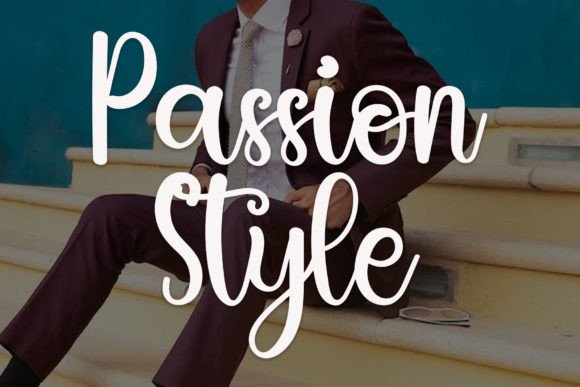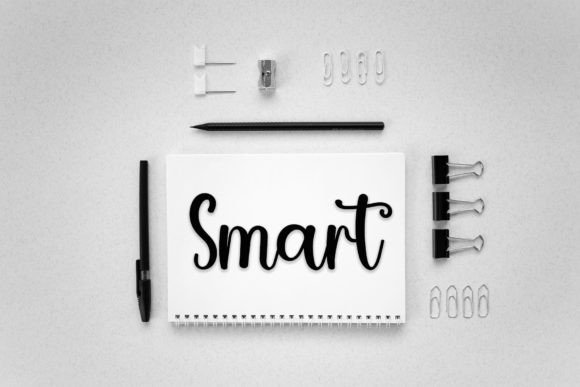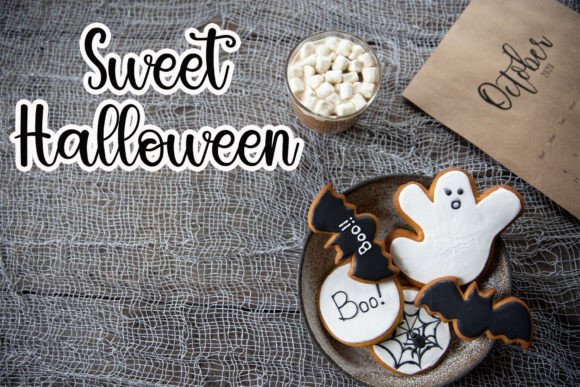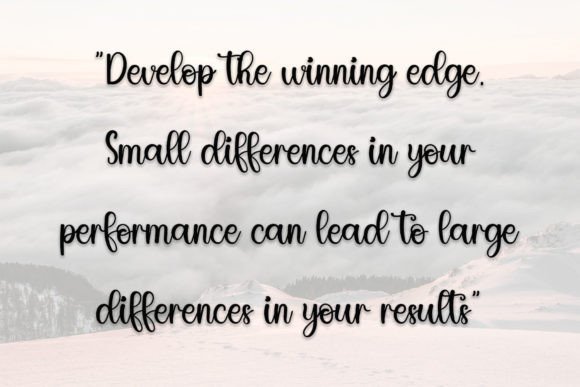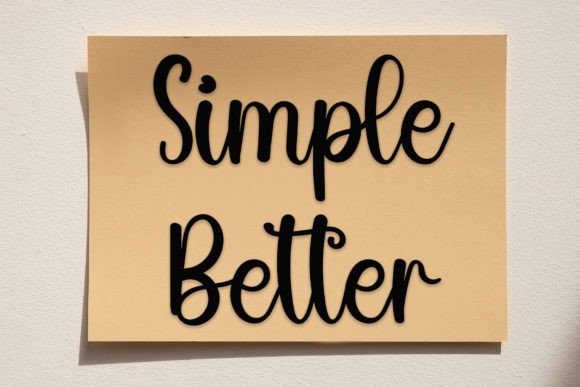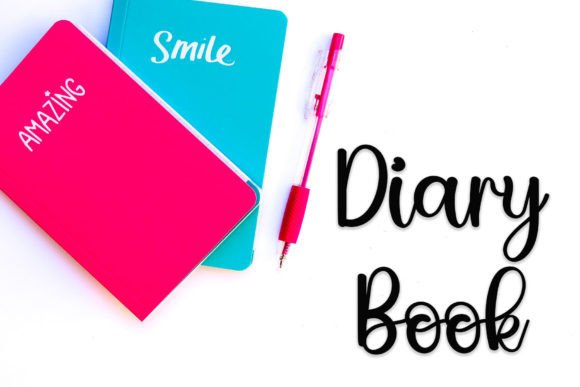
Introducing Autumn Smile Font: The Perfect Typeface for Fall-Inspired Designs
As the leaves change colors and the air grows crisp, designers and crafters are on the lookout for the perfect typography to capture the essence of the autumn season. Look no further than Autumn Smile Font, a delightful and enchanting typeface that embodies the warmth and coziness of fall. With its graceful letterforms and earthy tones, this font is sure to add a touch of whimsy and charm to your designs.
The Inspiration Behind Autumn Smile Font
Autumn Smile Font is more than just a typeface – it’s an experience. Inspired by the vibrant colors and rustic charm of the fall season, this font is designed to evoke the feeling of crunching through fallen leaves, sipping apple cider, and snuggling up by the fire. The result is a font that’s both nostalgic and inviting, perfect for autumn-themed projects, seasonal greetings, and nature-inspired branding.
Key Features of Autumn Smile Font
- Unique Letterforms: Autumn Smile Font features distinctive letterforms with a playful, handwritten feel. Each character is carefully crafted to convey a sense of warmth and approachability.
- Warm, Earthy Tones: The font’s earthy color palette is reminiscent of fallen leaves, rich soil, and cozy sweaters. This warm tone is perfect for creating a sense of comfort and nostalgia in your designs.
- Whimsical Charm: Autumn Smile Font has a playful, whimsical quality that’s sure to delight. Whether you’re designing a seasonal greeting card or a nature-inspired brand identity, this font adds a touch of magic to your project.
- Versatility: This font is perfect for a wide range of design applications, from digital projects to print materials. Use it for autumn-themed social media graphics, fall festival posters, or cozy packaging design.
Using Autumn Smile Font in Your Designs
Autumn Smile Font is incredibly versatile, making it perfect for a variety of design projects. Here are a few ideas to get you started:
- Autumn-Themed Greetings: Use Autumn Smile Font to create warm and welcoming seasonal greetings, such as Thanksgiving cards, Halloween invitations, or fall-themed party announcements.
- Nature-Inspired Branding: Add a touch of whimsy and charm to your brand identity with Autumn Smile Font. This font is perfect for outdoor gear companies, gardening businesses, or eco-friendly product brands.
- Fall Festival Posters: Create eye-catching posters and flyers for fall festivals, harvest events, or seasonal celebrations using Autumn Smile Font.
- Cozy Packaging Design: Use Autumn Smile Font to add a touch of warmth and coziness to your packaging design. Perfect for seasonal products, gift wrapping, or specialty foods.
Tips for Pairing Autumn Smile Font with Other Typefaces
Autumn Smile Font is a versatile typeface that can be paired with a variety of other fonts to create a unique and visually appealing design. Here are a few tips for pairing Autumn Smile Font with other typefaces:
- Combine with a Serif Font: Pair Autumn Smile Font with a classic serif font, such as Garamond or Georgia, to create a striking contrast between playful and traditional typography.
- Match with a Script Font: Combine Autumn Smile Font with a flowing script font, such as Pacifico or Great Vibes, to create a whimsical and artistic design.
- Use with a Bold Font: Pair Autumn Smile Font with a bold, sans-serif font, such as Arial Black or Impact, to create a striking contrast between light and heavy typography.
Autumn Smile Font is a delightful and enchanting typeface that’s perfect for capturing the essence of the fall season. With its unique letterforms, warm earthy tones, and whimsical charm, this font adds a touch of coziness and nostalgia to your designs. Whether you’re a designer, crafter, or DIY enthusiast, Autumn Smile Font is sure to become your go-to typeface for autumn-themed projects. So why wait? Download Autumn Smile Font today and start creating your own autumn-inspired masterpieces!